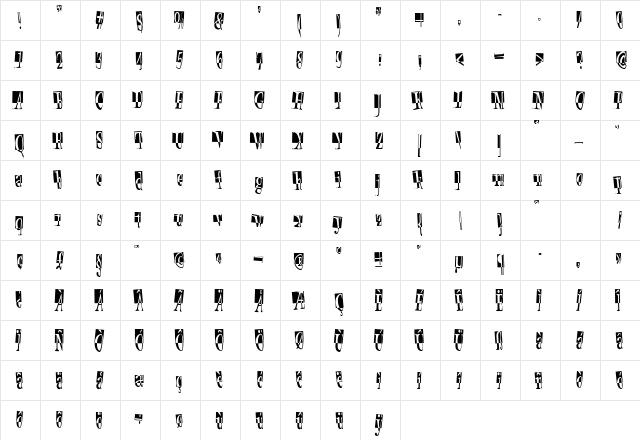
Rustic Retro Headers Regular
Design Context for Rustic Retro Headers Typeface
Rustic Retro Headers wears its vintage influences proudly, with letterforms that recall mid-century signage, classic packaging, and nostalgia-driven design.
Ideal for diner signage, record shop branding, 70s/80s-themed projects, and heritage product labels.
Font Pairing: Combine Rustic Retro Headers with a simple slab or neutral sans — period-accurate companions reinforce the vintage feel without competing for attention.
Pro Tip: Lean into Rustic Retro Headers's period character by pairing it with aged paper textures, muted colour palettes, and vintage illustration styles.